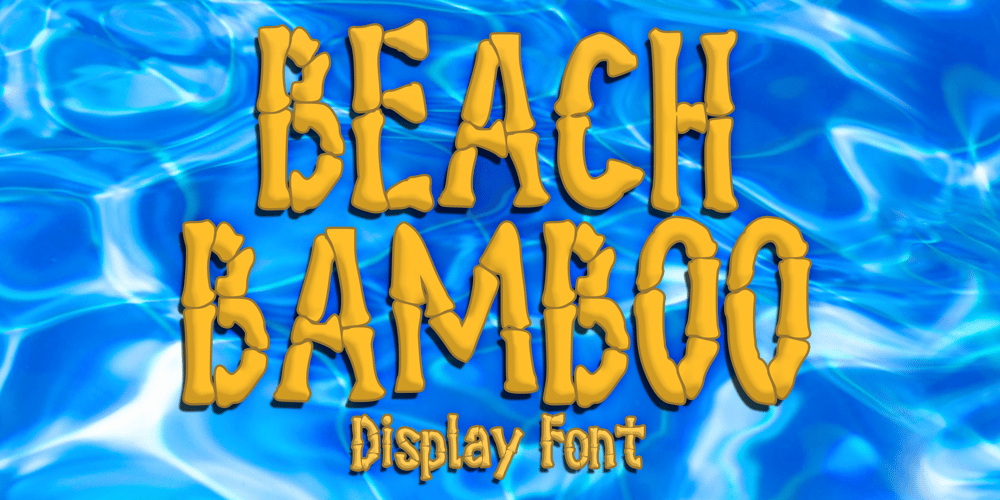
Beach Bamboo
Beach Bamboo font
Beach Bamboo Font Family was designed by Gabriel Valentinus and published by Mvmet. Beach Bamboo contains 1 styles and family package options. Beach Bamboo is a fun and playful bamboo themed font. You can use it for anything ranging from t-shirts, book designs, packaging, food menu and greeting cards to stickers and posters, or anything that needs a casual touch, it will be your perfect font to pick. Fall in love with its incredibly versatile style, and use it to create lovely designs!